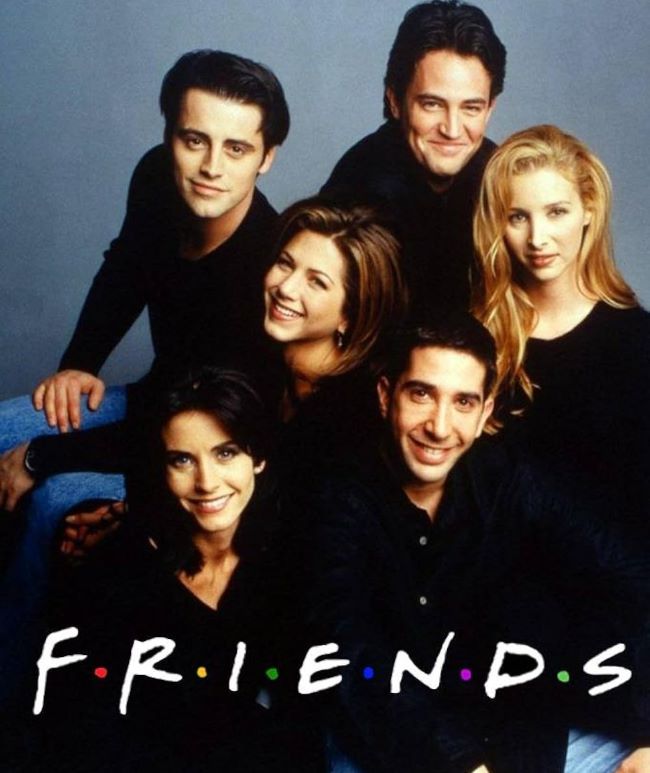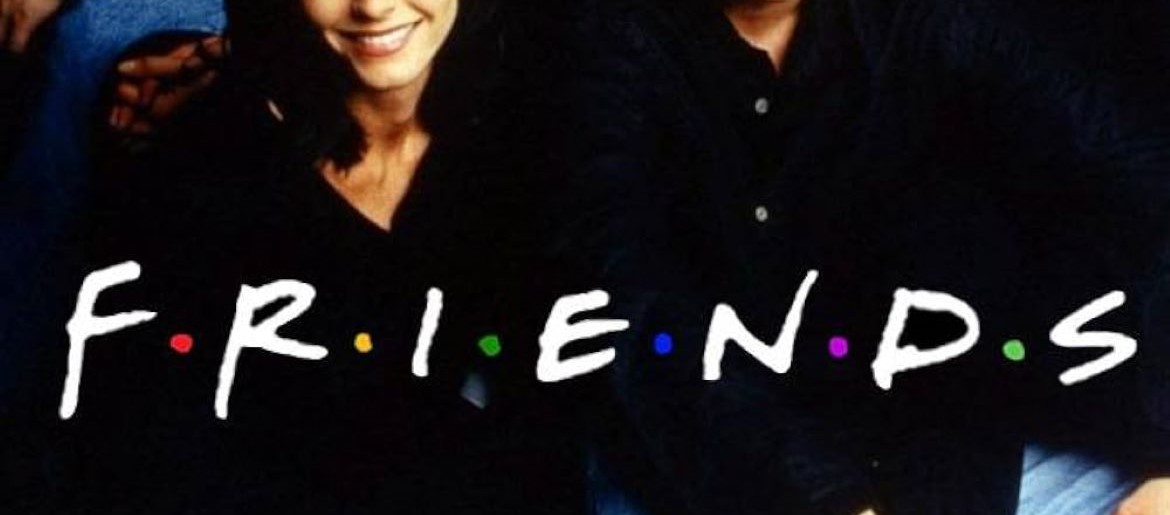
Friends Font
Friends Font is cheerful, simple, and instantly recognizable, capturing the warm, lighthearted spirit of the beloved sitcom. Its clean sans-serif lettering, paired with the iconic colored dots between letters, creates a playful and welcoming look that mirrors the show’s upbeat energy. Designers frequently use this style for parodies, fan art, social graphics, and nostalgic 90s-inspired projects because it instantly evokes friendship and everyday humor.
The design is straightforward yet iconic, blending simplicity with personality. Its friendly, readable forms make it ideal for invitations, themed merchandise, and any design that needs a nostalgic, comforting touch. The Friends Font proves that minimal, thoughtful typography can become a lasting cultural symbol.
About Friends
Premiering in 1994, Friends follows six friends—Rachel, Ross, Monica, Chandler, Joey, and Phoebe—navigating life and love in New York City. Loved for its humor, heart, and memorable moments, the series became a defining sitcom of the 1990s and remains popular across generations.